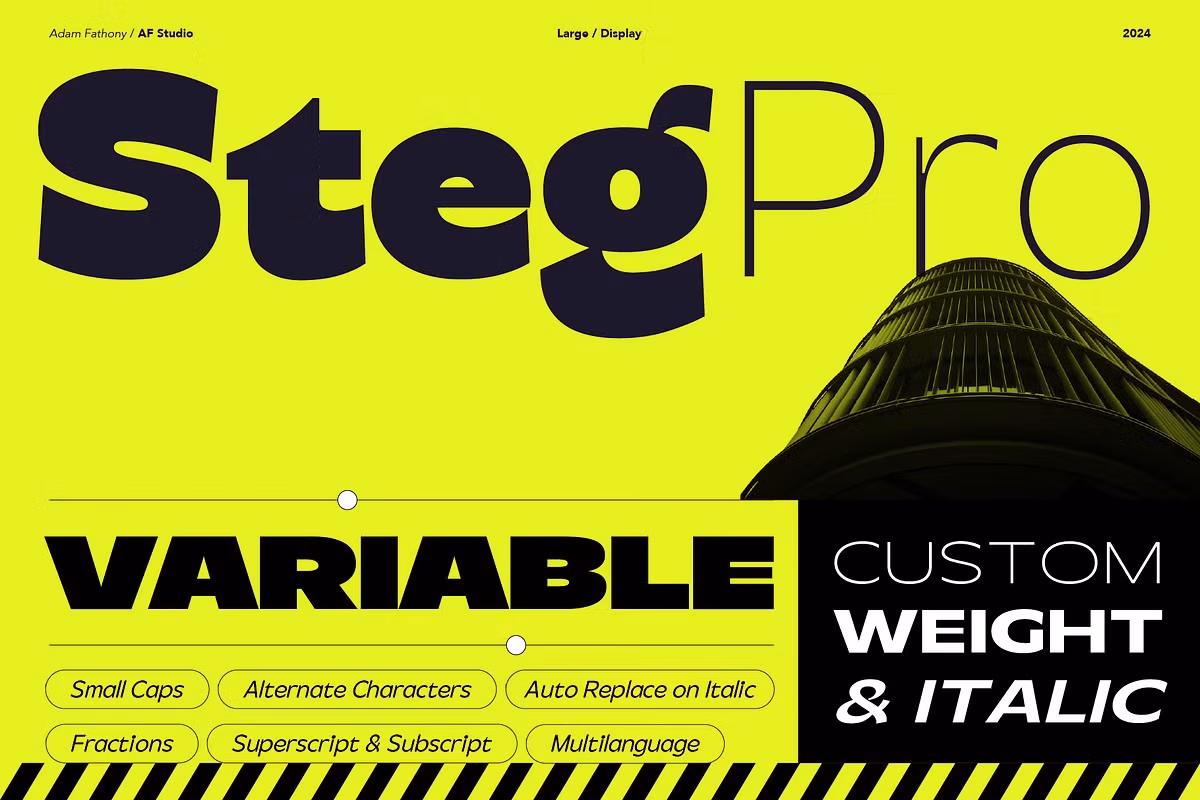
The Steg Pro - Variable Fonts Free Download is a modern and versatile typeface designed to provide flexibility and precision in your designs. Featuring variable font technology, Steg Pro allows you to adjust weight, width, and slant to perfectly suit your project’s needs. Whether you’re working on branding, web design, editorial layouts, or any other creative endeavor, Steg Pro offers a wide range of customization options to ensure your typography stands out.
Steg Pro - Variable Fonts Free Download is ideal for designers who need a highly adaptable and professional font. Perfect for modern branding, user interfaces, or design projects that require versatile typography, Steg Pro will enhance your work with its sleek, customizable style. Download it today and elevate your creative projects with the flexibility and elegance of Steg Pro!